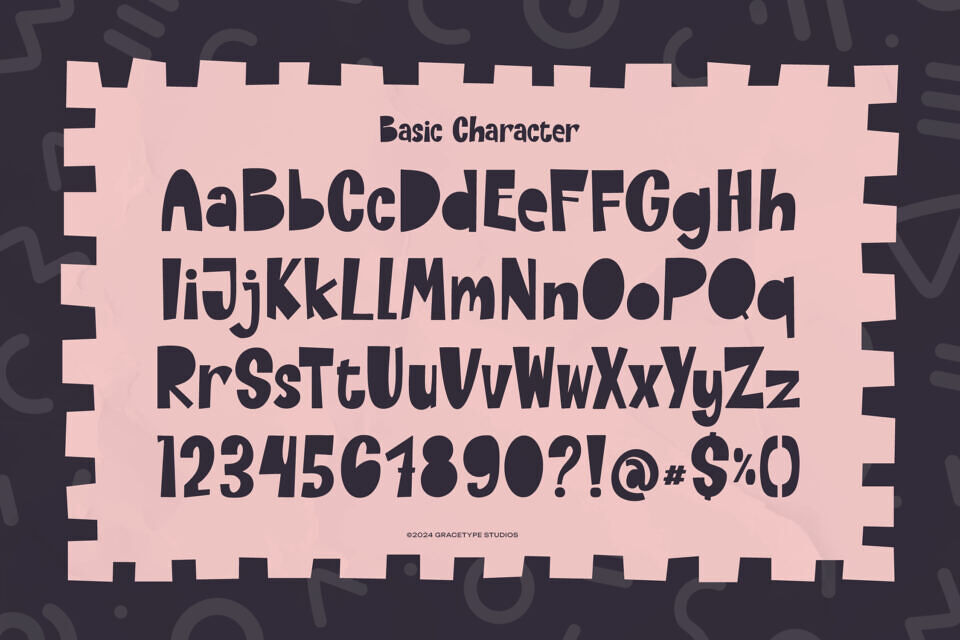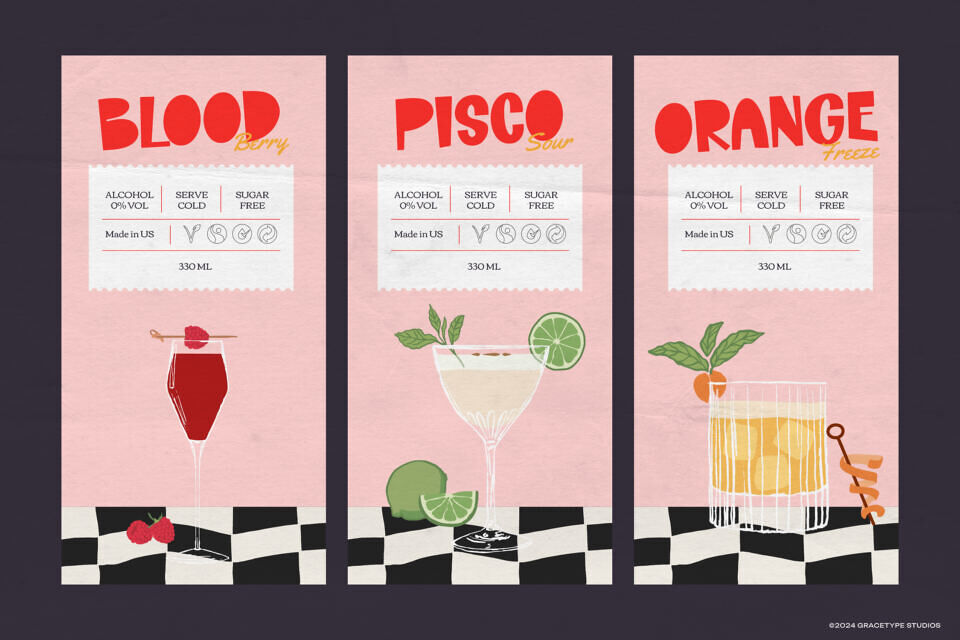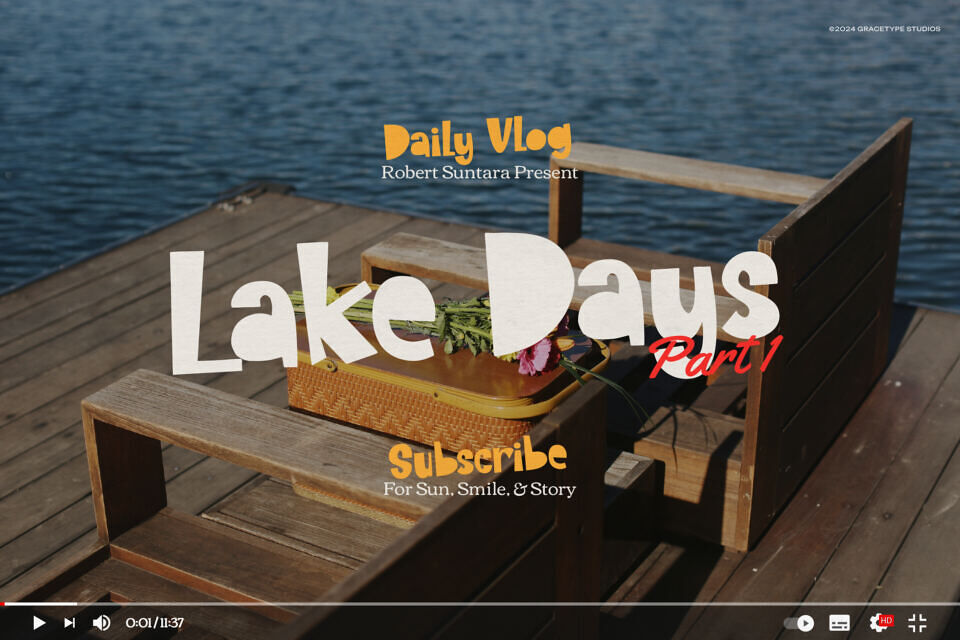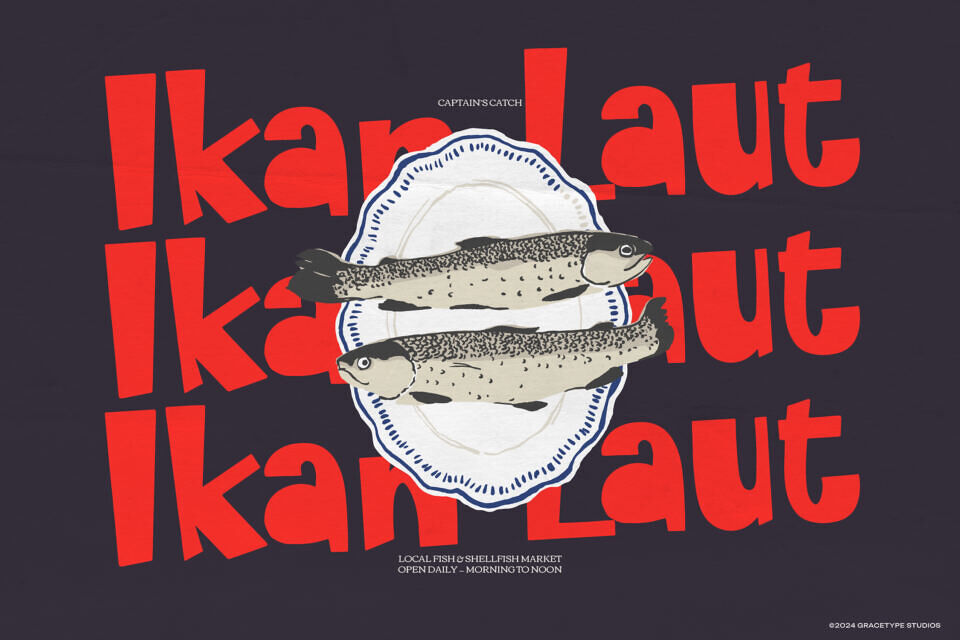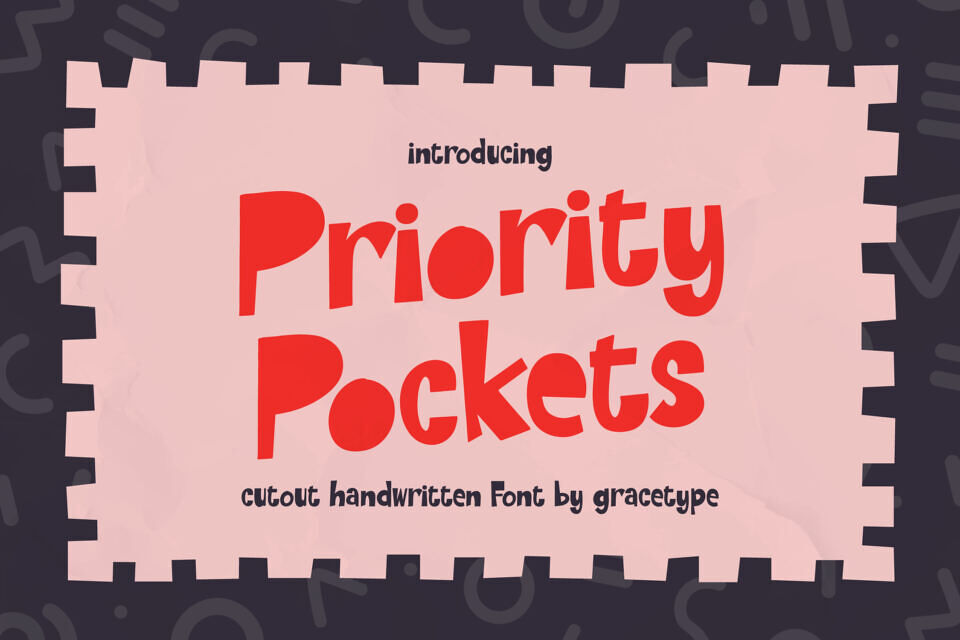
Priority Pocket Font
Priority Pocket is a Cutout Handwritten from Gracetypestudio, suitable for any projects such as: logos, branding projects, homeware designs, product packaging, mugs, quotes, posters, shopping bags, t-shirts, book covers, name card, invitation cards, greeting cards, label, photography, watermark, special events, and all your other lovely projects that need a Cutout Handwritten taste.